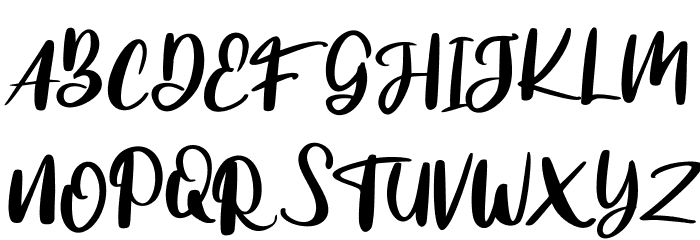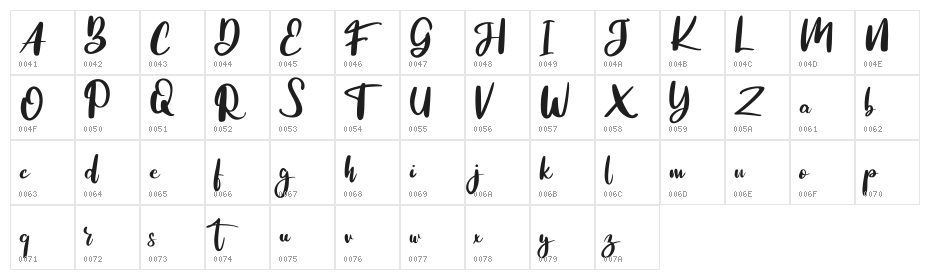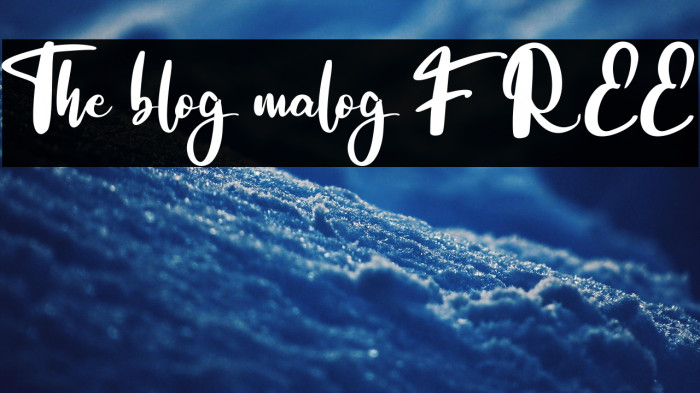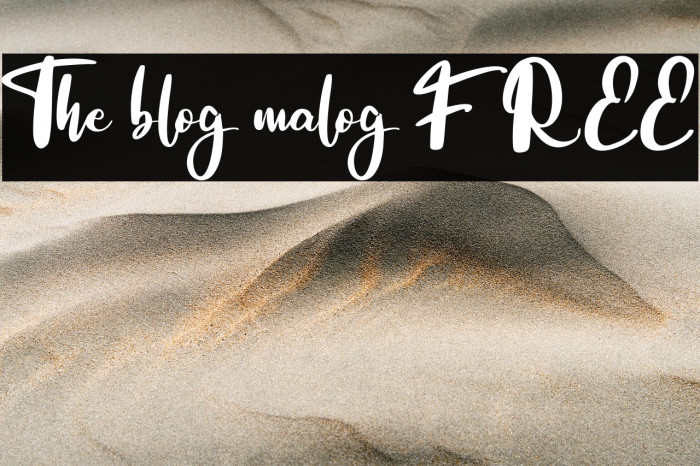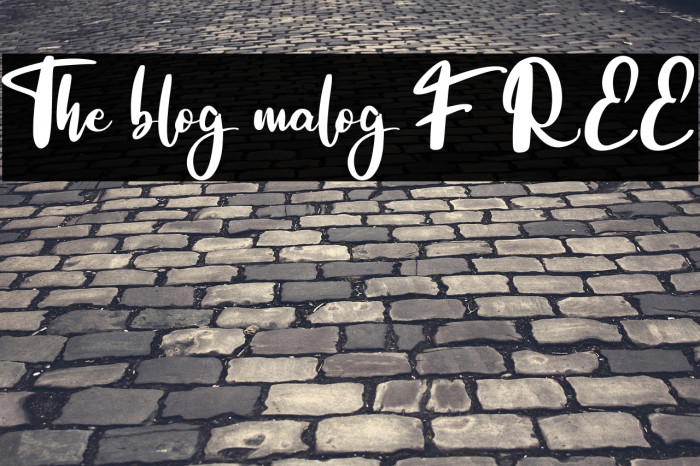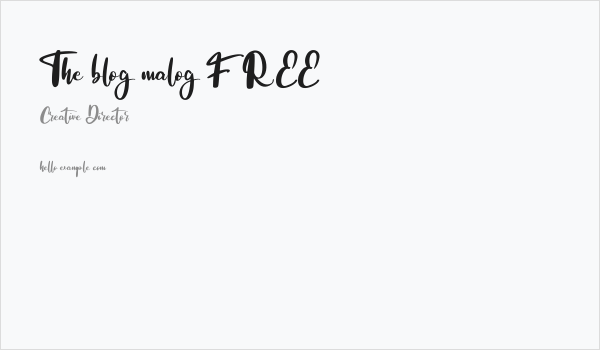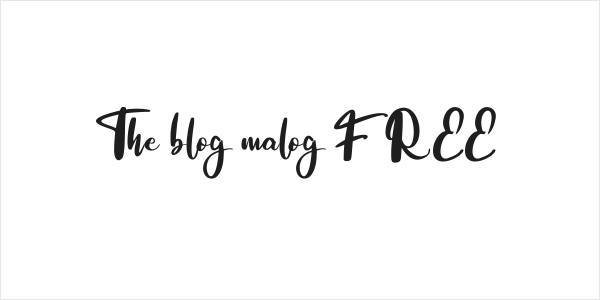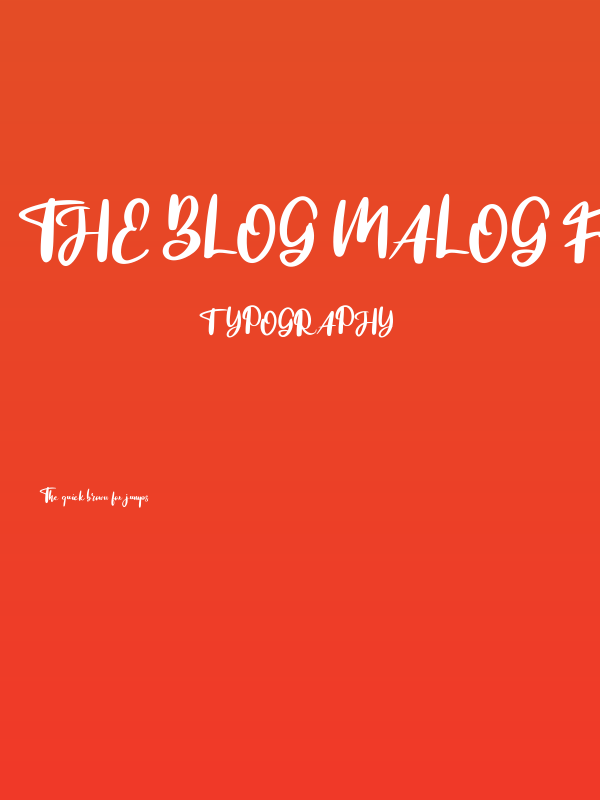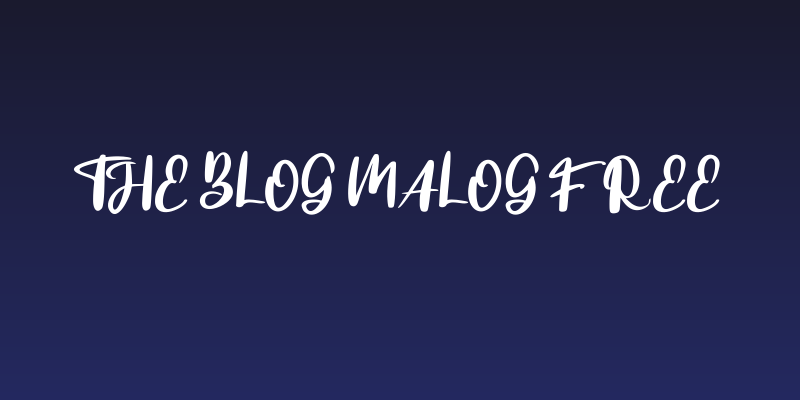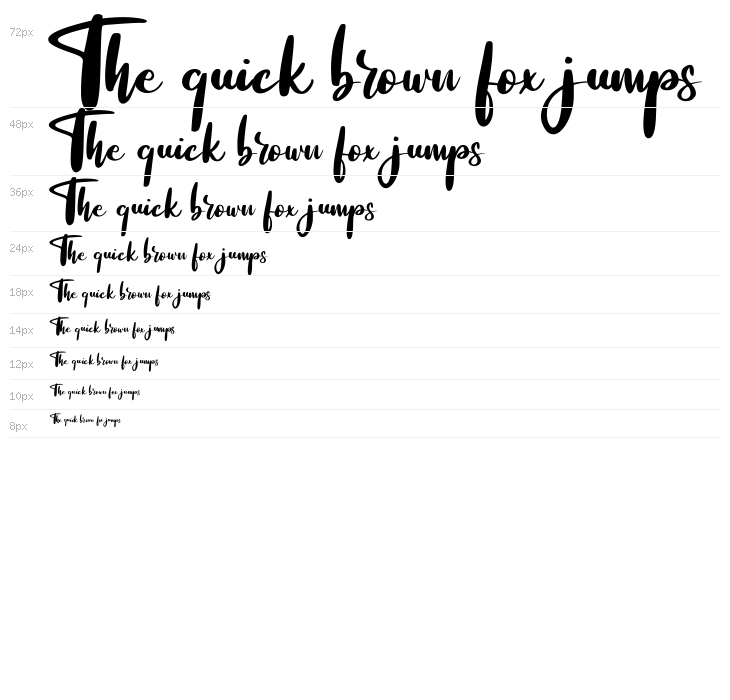
The blog malog FREE Font
The blog malog FREE Description
This font features a bold, flowing script style with a handwritten appearance. The letters are connected, giving it a cohesive and elegant look. The uppercase letters are slightly more elaborate, with flourishes that add a touch of sophistication. The lowercase letters maintain a consistent flow, enhancing readability while retaining an artistic flair. The numbers and special characters are designed to match the overall style, ensuring a harmonious appearance across all text elements. This font is ideal for projects that require a personal, yet polished touch.
| Proposed Projects | Ideal for wedding invitations, greeting cards, branding, and social media graphics. |